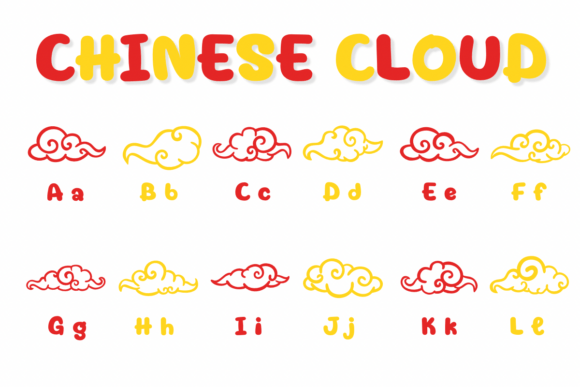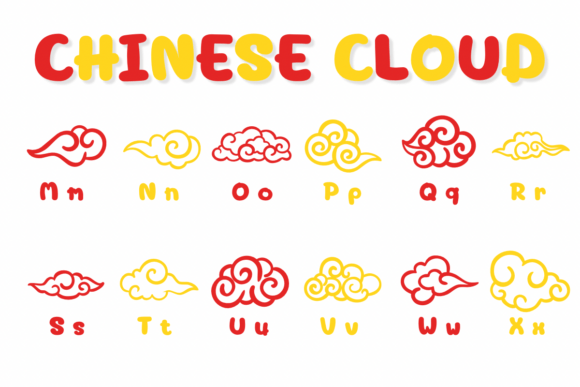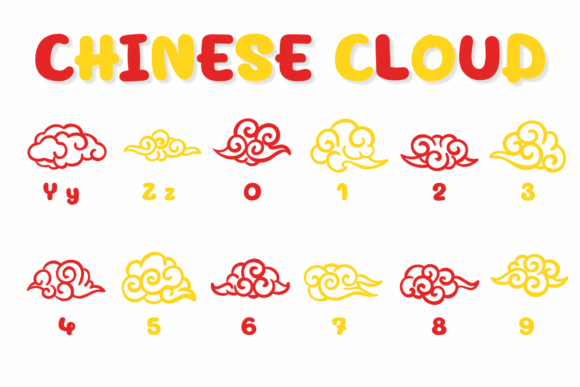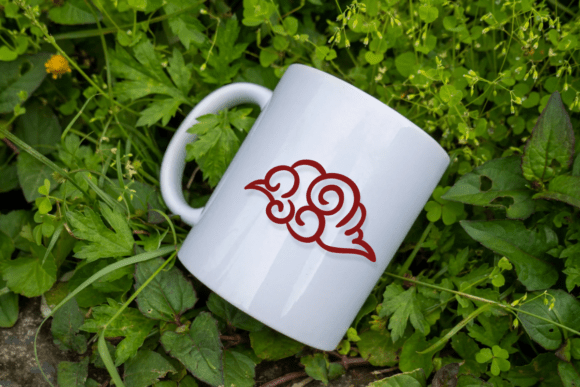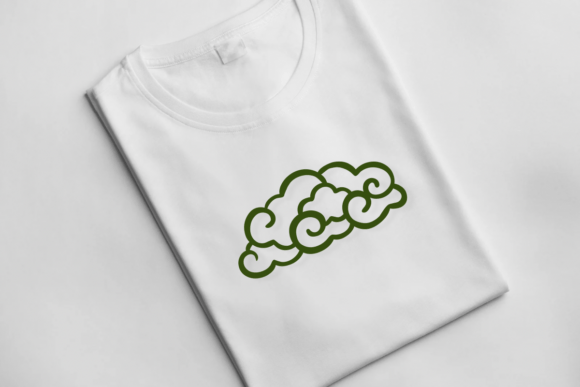
Introduction to Chinese Cloud Font
Have you ever found yourself scrolling through a design blog, Pinterest, or Instagram, and suddenly, an idea strikes you? You see a beautiful wedding invitation, and you can’t help but imagine the perfect font to match your own creative vision. This is exactly what happened to many designers who stumbled upon the enchanting Chinese Cloud Font.
This delicate dingbats font is a treasure trove of creative possibilities, waiting to be unleashed in your next project. With its high-quality design and transparent background, Chinese Cloud Font is an ideal resource for designers seeking to add a touch of elegance to their work. Whether you’re working on a wedding invitation, a DIY craft, or a logo, this font is sure to elevate your design and make it stand out.
Key Features of Chinese Cloud Font
- High-quality design resource featuring intricate cloud and Chinese-inspired elements, ideal for creative projects.
- Transparent background option enables seamless integration into diverse design backgrounds and compositions.
- Unique blend of traditional Chinese elements and modern cloud design, offering a distinctive visual aesthetic for creative projects.
- Size: Various font sizes and cloud elements available, allowing designers to scale and customize the design resource to suit their needs.
- Perfect for designers, artists, and crafters seeking a high-quality, free design resource for their creative projects.
Honest Review: Chinese Cloud Font
I recently had the chance to try out the Chinese Cloud Font, a beautiful and unique design resource that I’ve been excited to incorporate into my next creative project. ✨
One of the things that really stood out to me about this font is its high quality. The crisp, clean lines and detailed designs make it perfect for any project that needs a touch of elegance. And, as a bonus, it’s completely free to download, making it a great resource for designers on a budget.
Another great feature of the Chinese Cloud Font is its transparent background, which makes it incredibly versatile and easy to use. You can drop it into any design without worrying about clashing colors or distracting backgrounds.
What I liked:
What I didn’t like:
- Only a limited number of styles available
- Not ideal for use in extremely small sizes
- Can be difficult to read for those with vision impairments
Overall, I’m really impressed with the Chinese Cloud Font. It’s a great addition to any designer’s toolkit, and I’m excited to see how it will enhance my next project. ✨
Chinese Cloud Font
The Chinese Cloud Font is a high-quality design resource that can add a touch of elegance to your creative project. With its transparent background, this font is perfect for creating visually appealing graphics, logos, and typography.
How to Use Chinese Cloud Font
Experiment with different font sizes, colors, and styles to create unique and eye-catching designs. Use the font in combination with other design elements to create a cohesive look.
The Chinese Cloud Font is perfect for creating:
- Infographics and data visualizations
- Wedding invitations and event materials
Q: Can I modify the Chinese Cloud Font to fit my design needs?